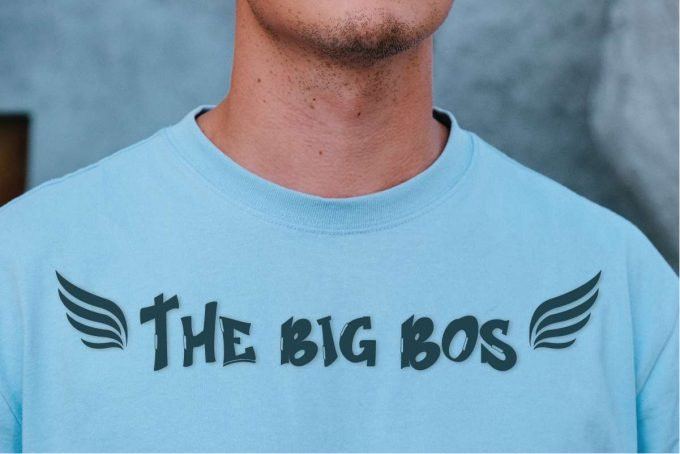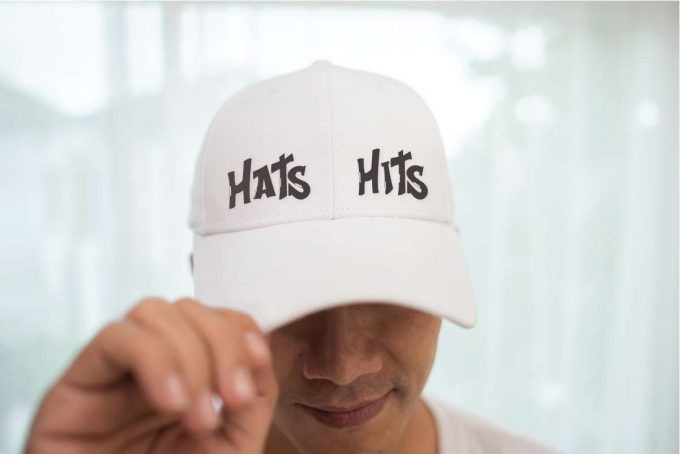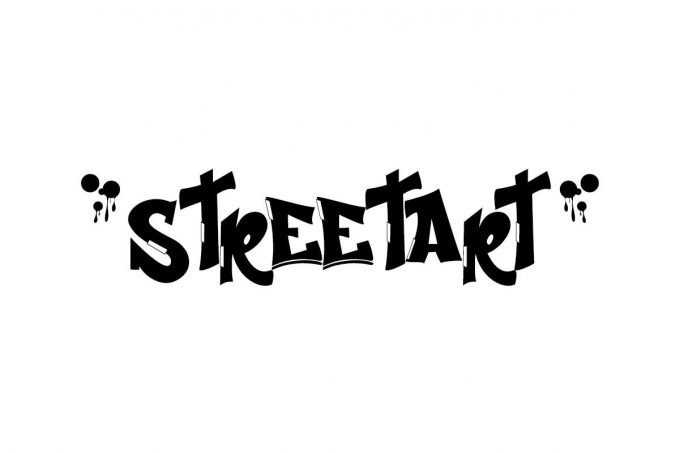
Streetart Display Font
Streetart Font is a display decorative font with Graffiti mural style. The font have two style options for you to choose or combine : Regular and Italic. The font Originally designed by NihStudio Team : Shalsa and Sarah.
Streetart Graffiti Font will be great for any projects (require extended license) including : branding, logo, promotion, flyer, brochure, comic etc.